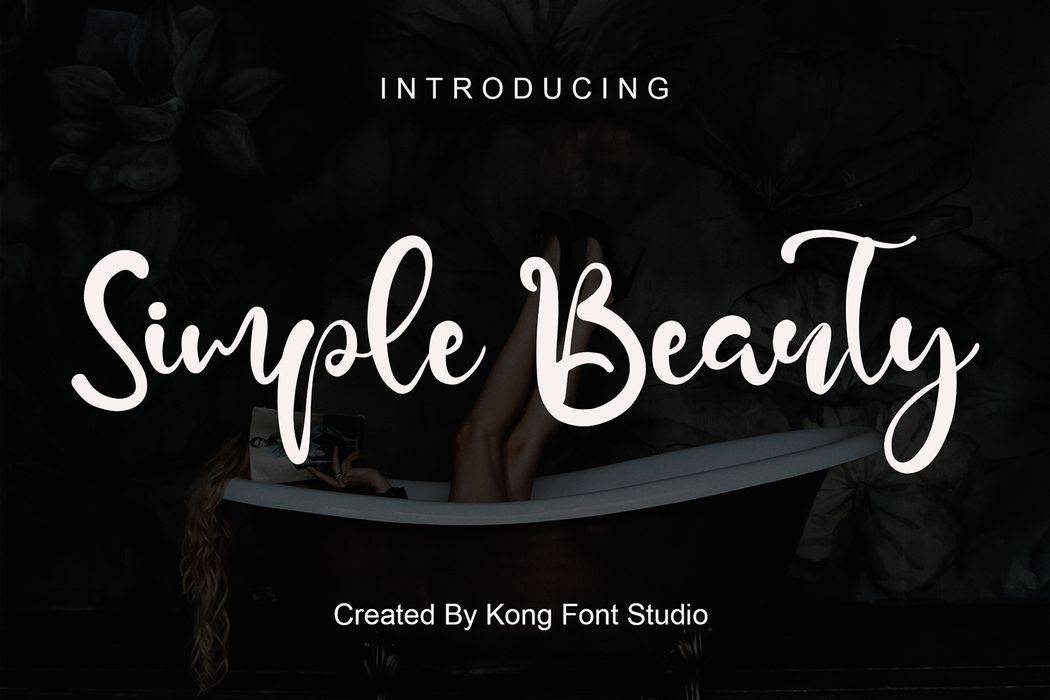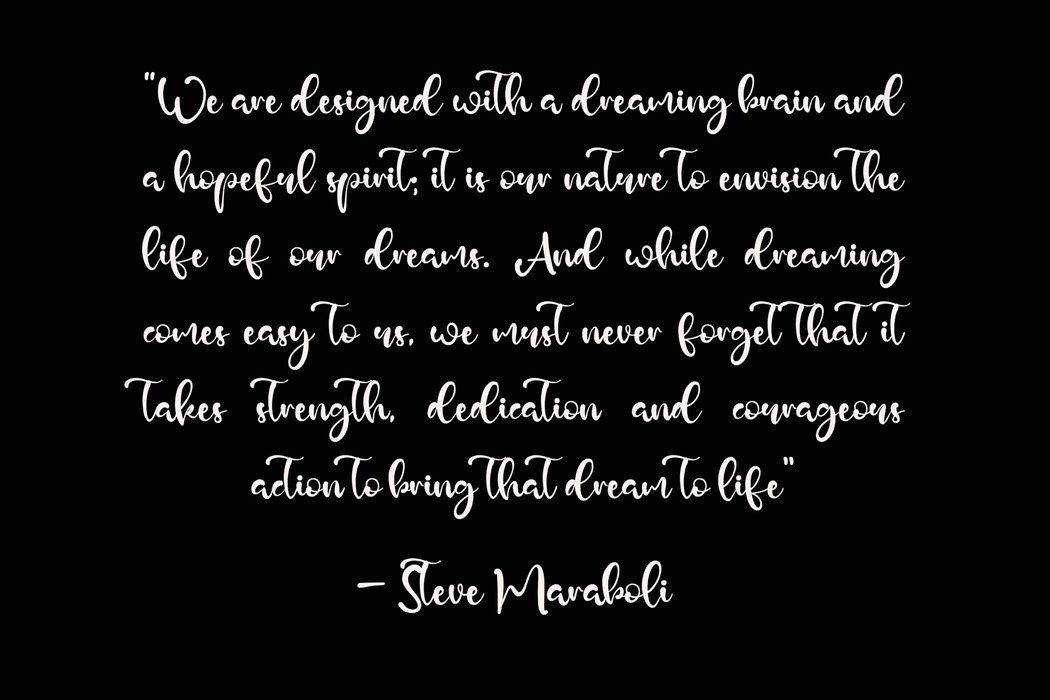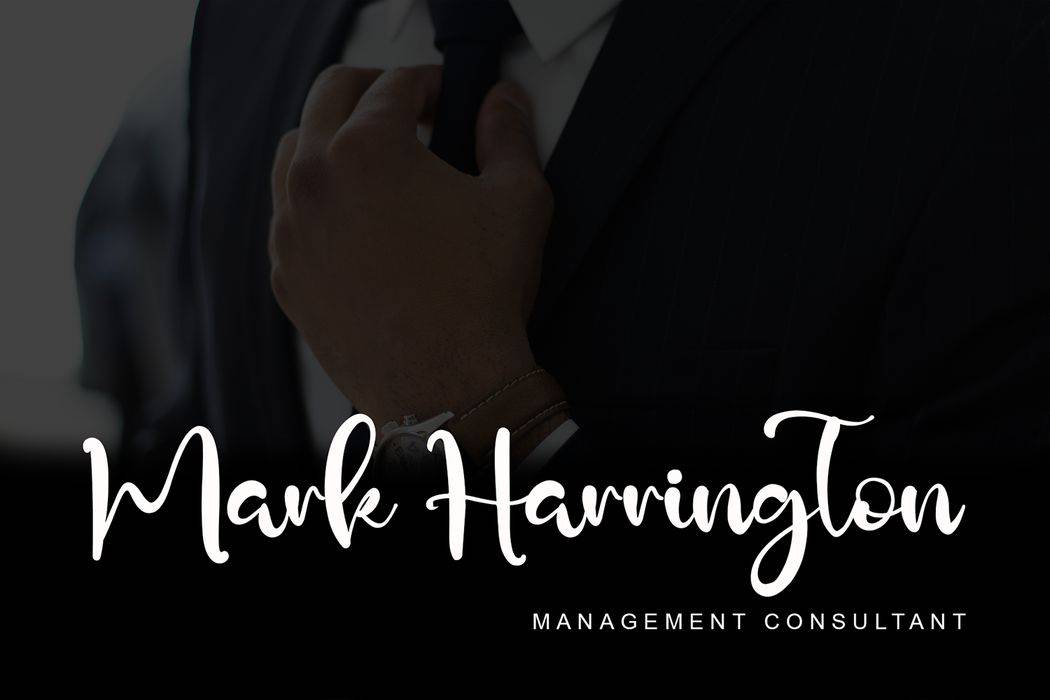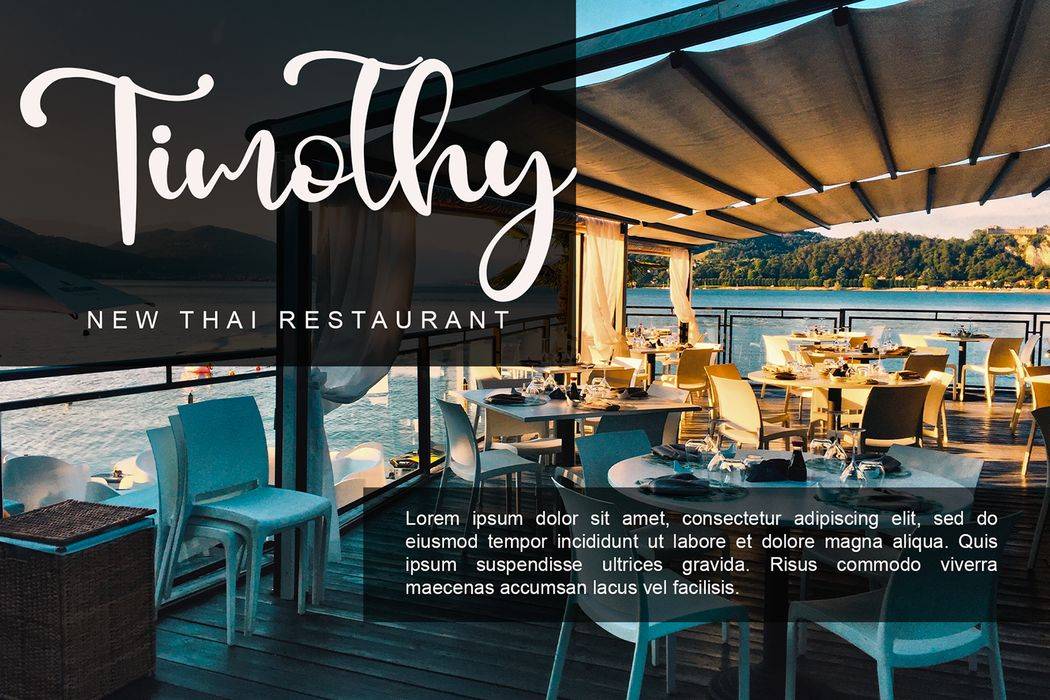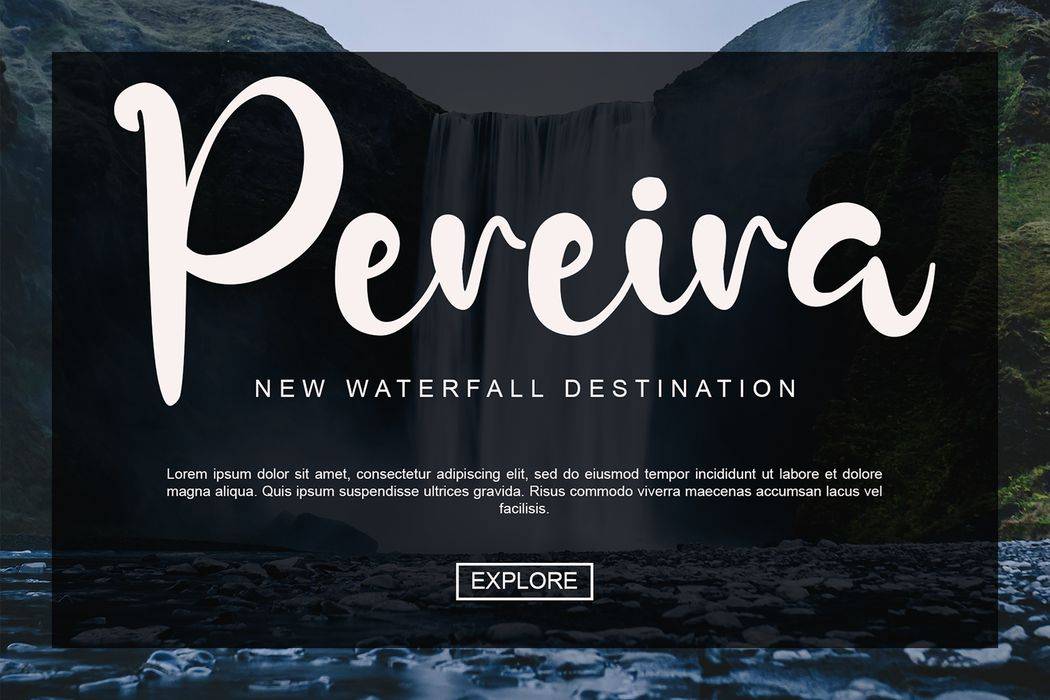
Simple Beauty is a charming script font with smooth, flowing letterforms that blend modern calligraphy with a playful, casual feel. Its balanced strokes and elegant curves make it ideal for creative branding, invitations, and headlines that want to convey warmth and personality without losing readability. This font works especially well where a friendly, stylish touch is needed, such as in fashion, lifestyle, and artistic design contexts.
Simple Beauty Font
About Simple Beauty Font